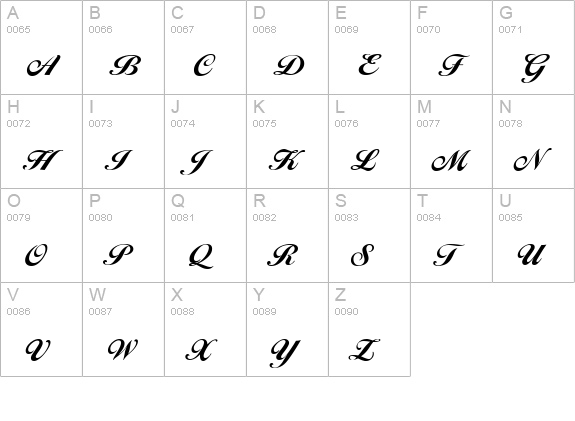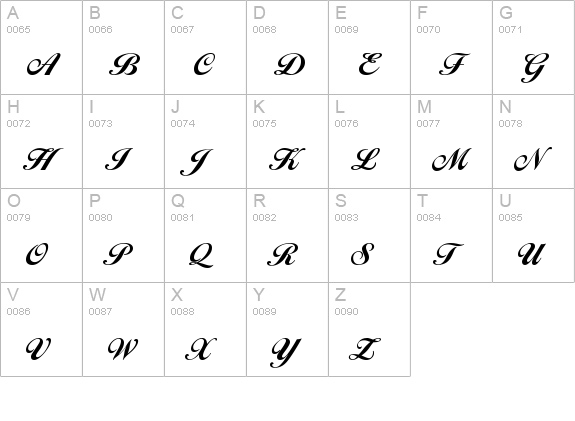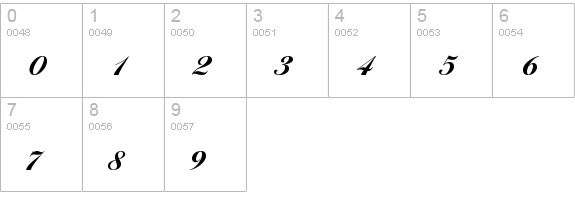
BallantinesSerial-Heavy-Regular Font Details
BallantinesSerial-Heavy-Regular is a heavy, high-impact variant in the BallantinesSerial typeface family \xE2\x80\x94 well suited to high-impact headlines, posters, and display advertising.
BallantinesSerial-Heavy-Regular is a versatile and stylish font that exudes a sense of strength and authority. Its bold and heavy appearance makes it perfect for headlines, titles, and other prominent text elements. This font's clean lines and classic design give it a timeless appeal that can enhance any project or design. The best part? BallantinesSerial-Heavy-Regular is available for free download at FontsMarket.com. Whether you're working on a professional presentation, a creative project, or anything in between, this font is sure to make a statement and leave a lasting impression. Download it today and elevate your typography game to new heights with BallantinesSerial-Heavy-Regular.